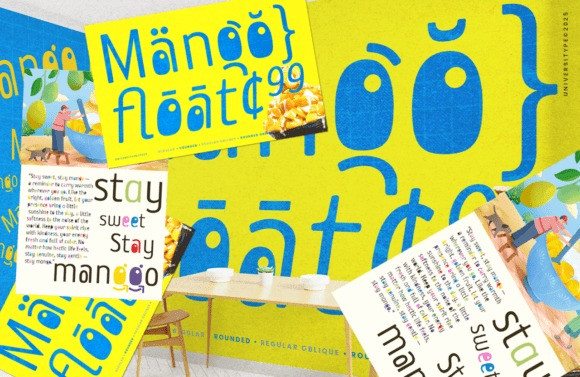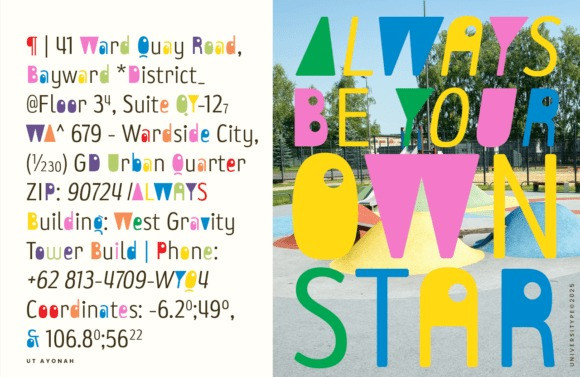
UT Ayonah Font
UT Ayonah Font is an enchanting blend of softness, clarity, and whimsy. These letterforms strike a delicate equilibrium between rounded geometric designs and nuanced deviations, lending a congenial charm that remains adult, not juvenile. Each character pulses with a calm cadence, livening up headlines and ensuring an ease of readability. Packaged in four methodically curated styles, UT Ayonah doesn’t operate as a standalone typeface, but as a mini typographic system. Adopt it in its straight, rounded, slanted or combined forms, each retaining an expressive and distinctive character. UT Ayonah finds its place with brand designers seeking to infuse buoyant, contemporary identities, artisans crafting for children, family, or lifestyle niches, UI and app designers curating warm, inviting interfaces, editorial designers in pursuit of light, friendly headline fonts and teachers, creators, and studios striving for welcoming typographic elements.